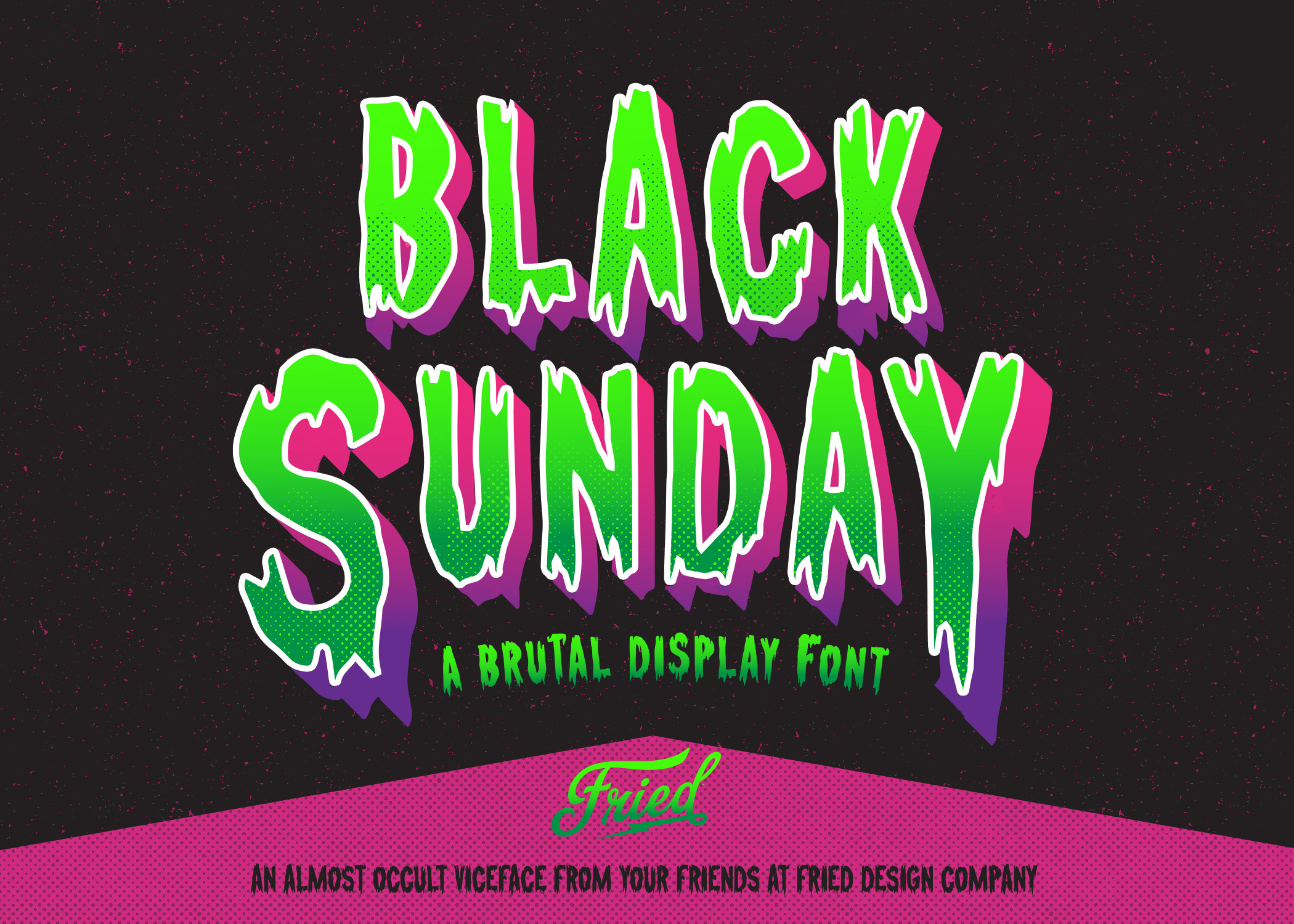
Black Sunday Display Font
Raise some hell with the FDC Black Sunday display font! Perfect for merch designs, posters, headlines and more. 100% FDC Guarantee to make other designers shake in their sandals.
Contextual Alternates